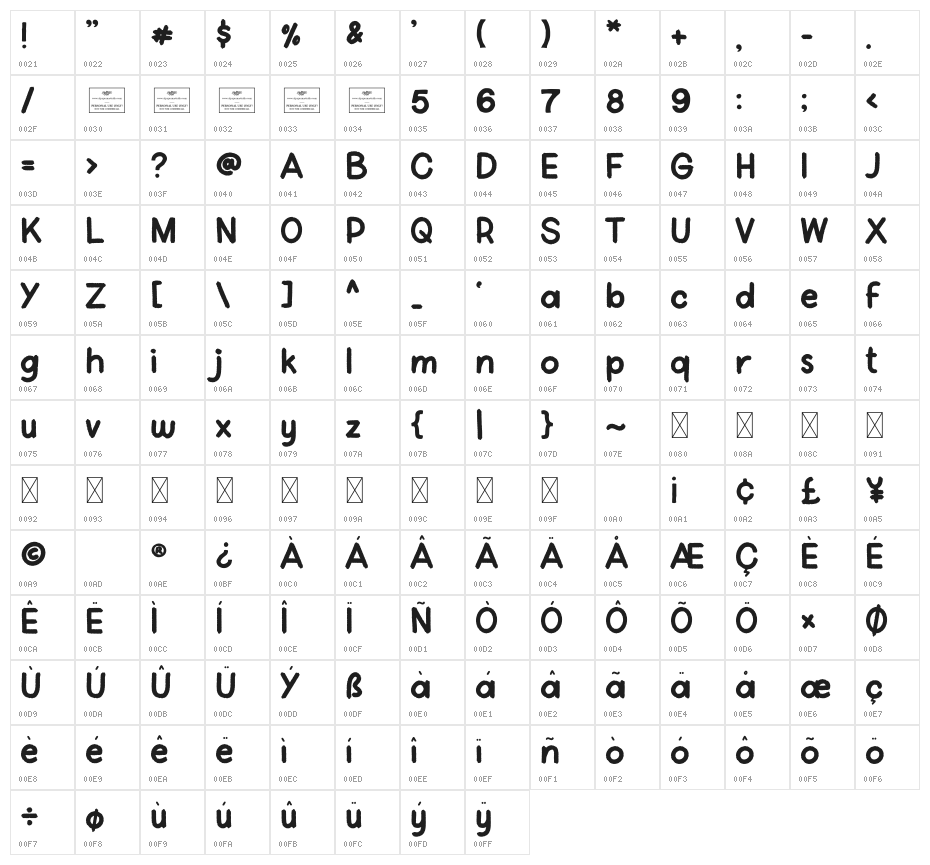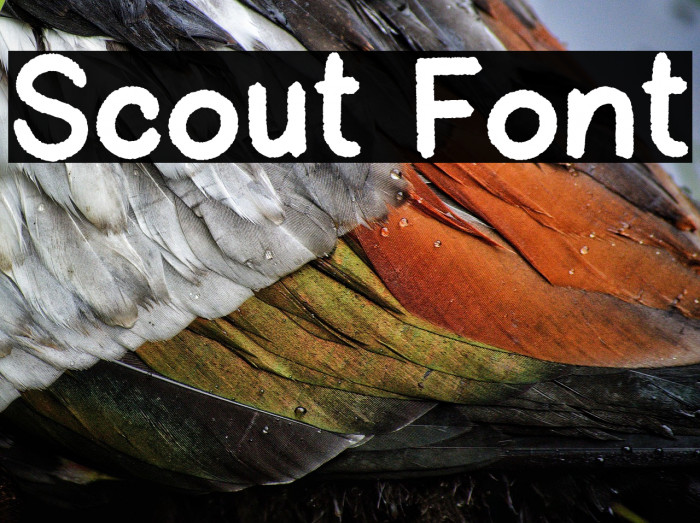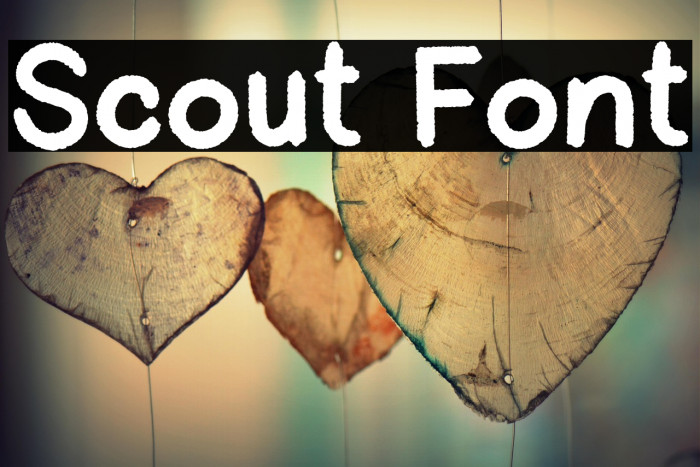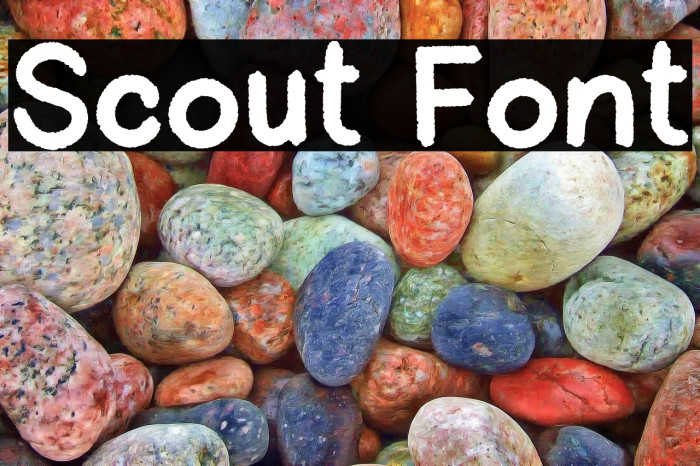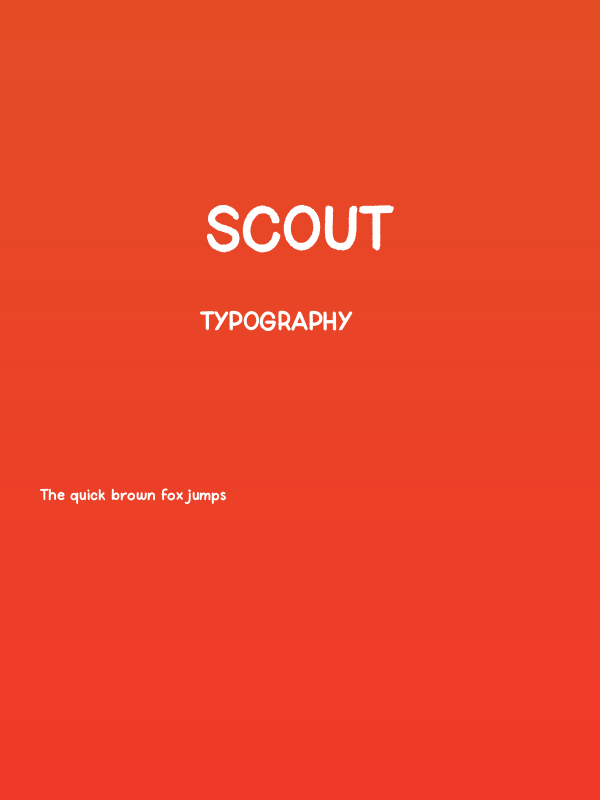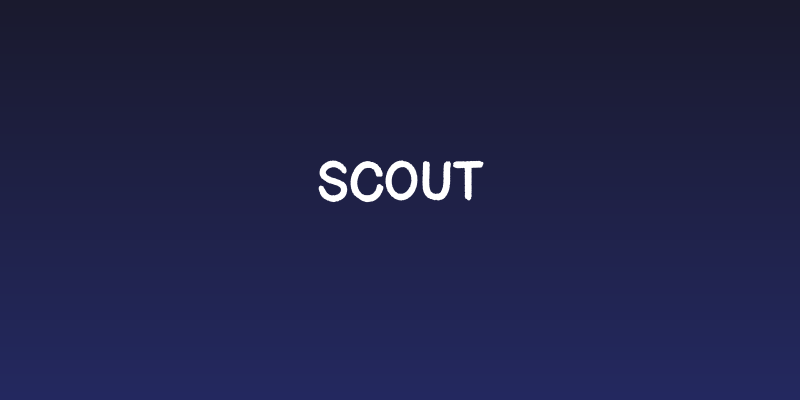
Scout Font
Scout Description
A playful, handwritten font with rounded edges and a casual style.
| Use Case | Headlines, Informal text |
| Proposed Projects | Greeting cards, children's books, casual branding. |